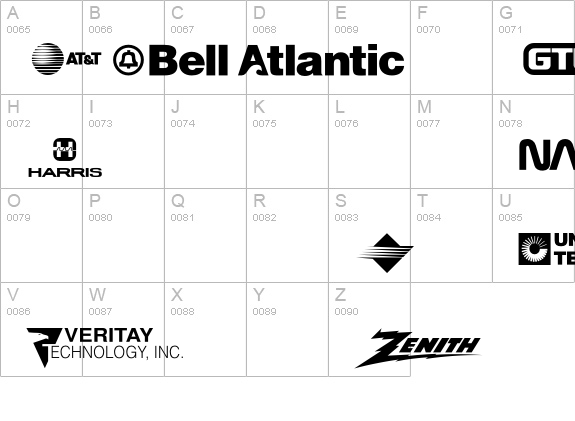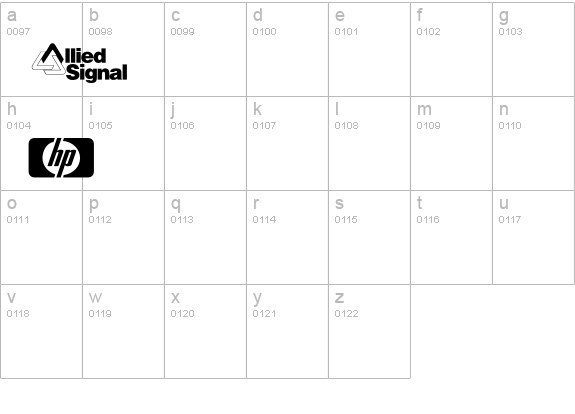
LogosTechnology Font Details
LogosTechnology font is a modern and sleek typeface designed for tech-savvy individuals and businesses looking to make a bold statement with their branding. With its clean lines and futuristic aesthetic, LogosTechnology font is perfect for website headers, app interfaces, and digital marketing materials. The best part? LogosTechnology font is completely free to download at FontsMarket.com! This means you can easily access this cutting-edge font for all your design projects without breaking the bank. Don't miss out on the opportunity to elevate your visual identity with the contemporary style of LogosTechnology font. Download it now and start creating standout designs today!